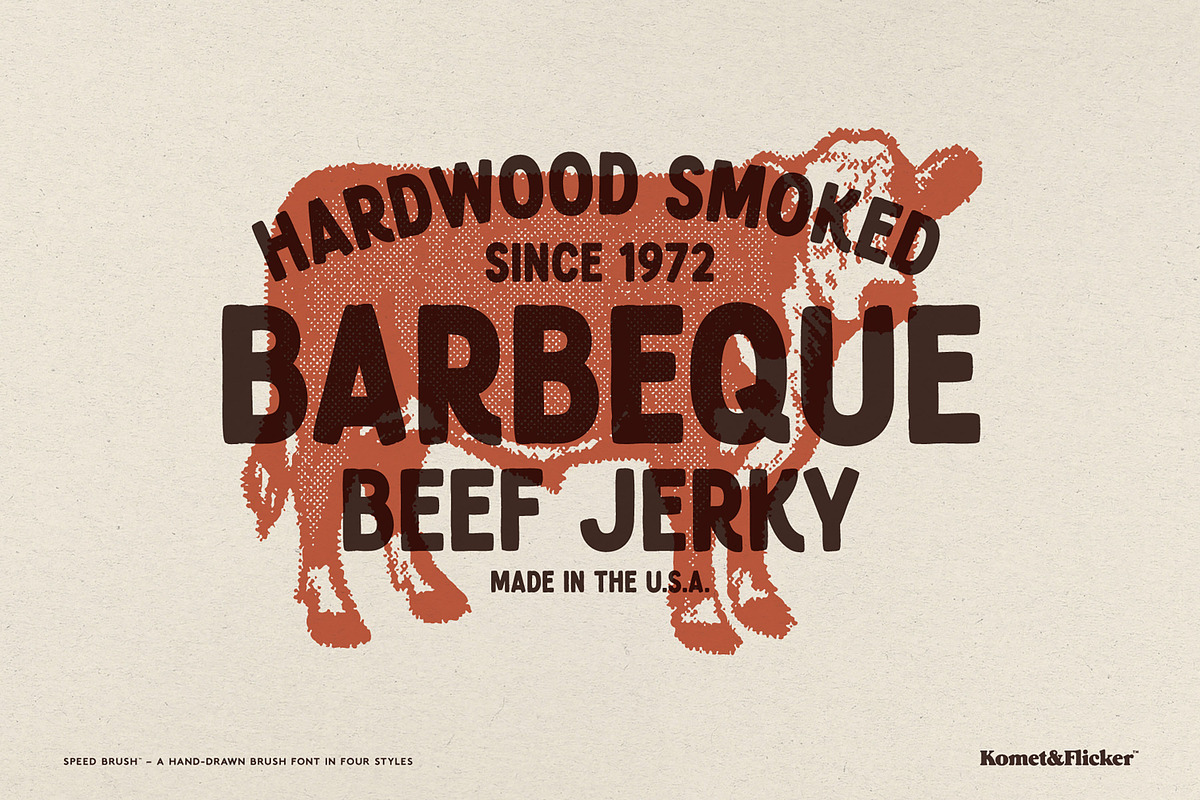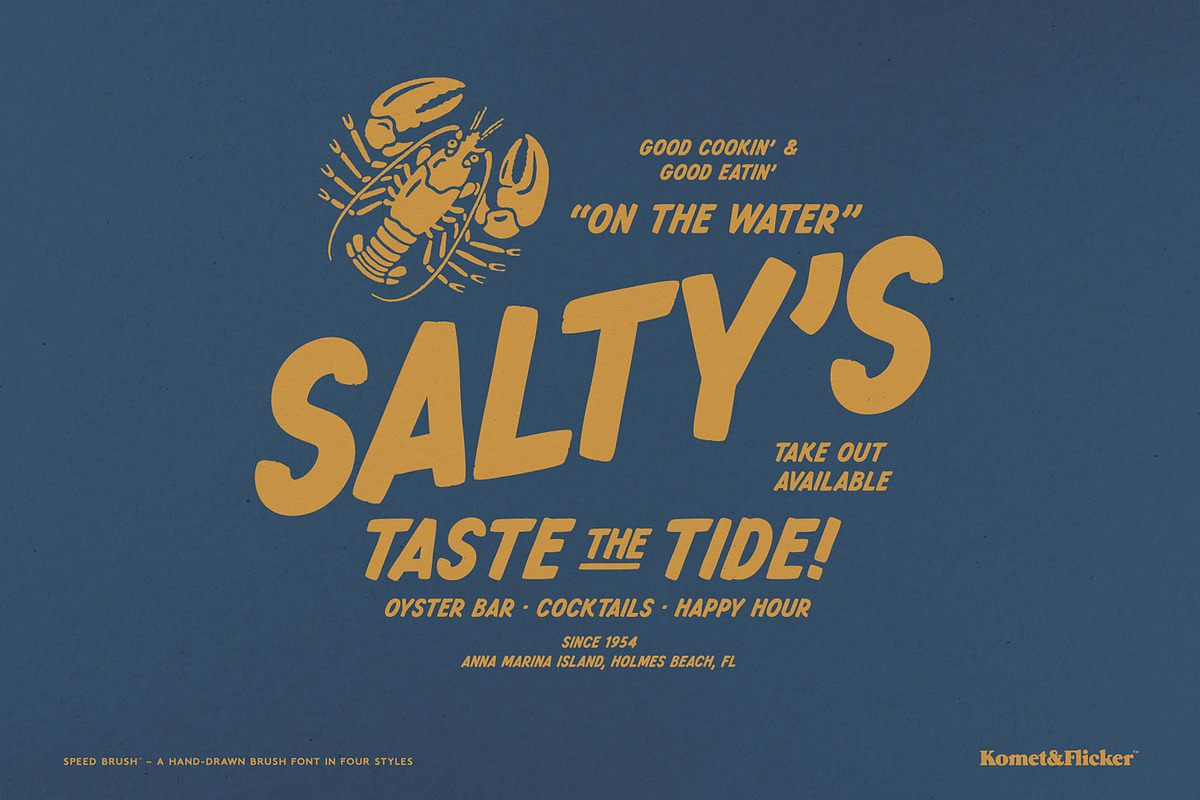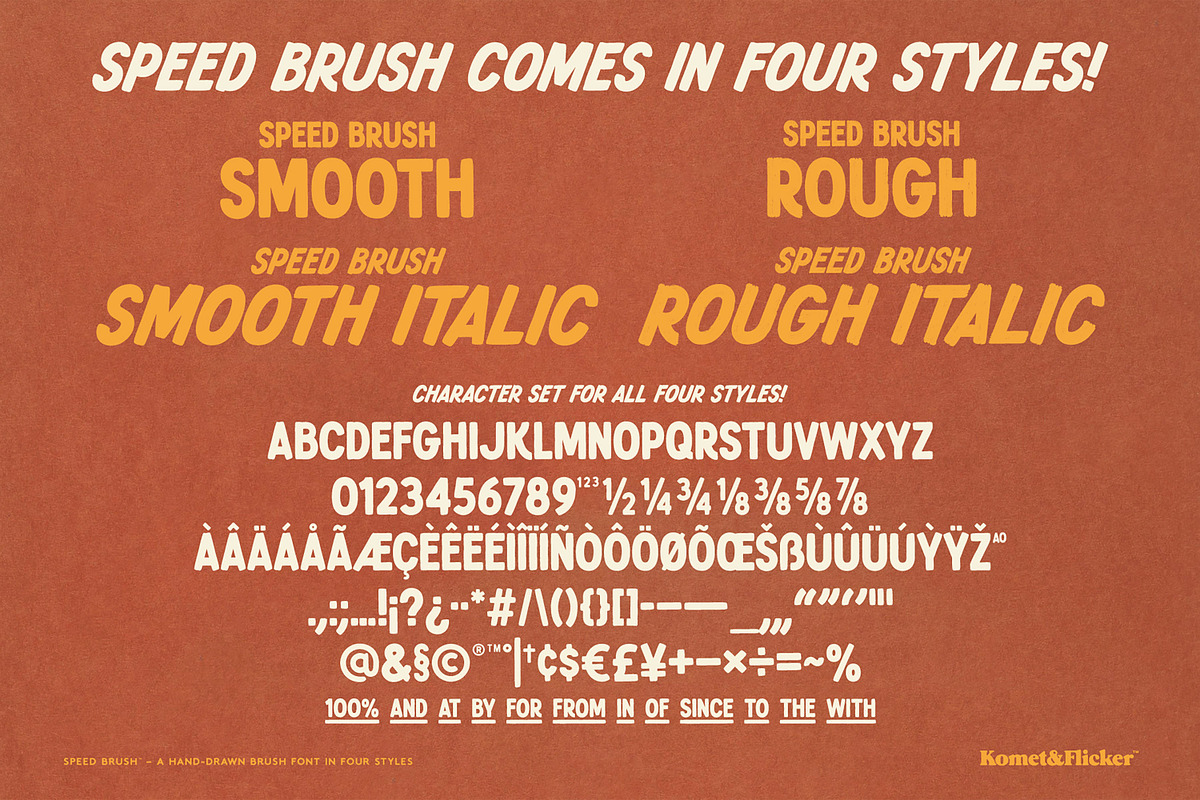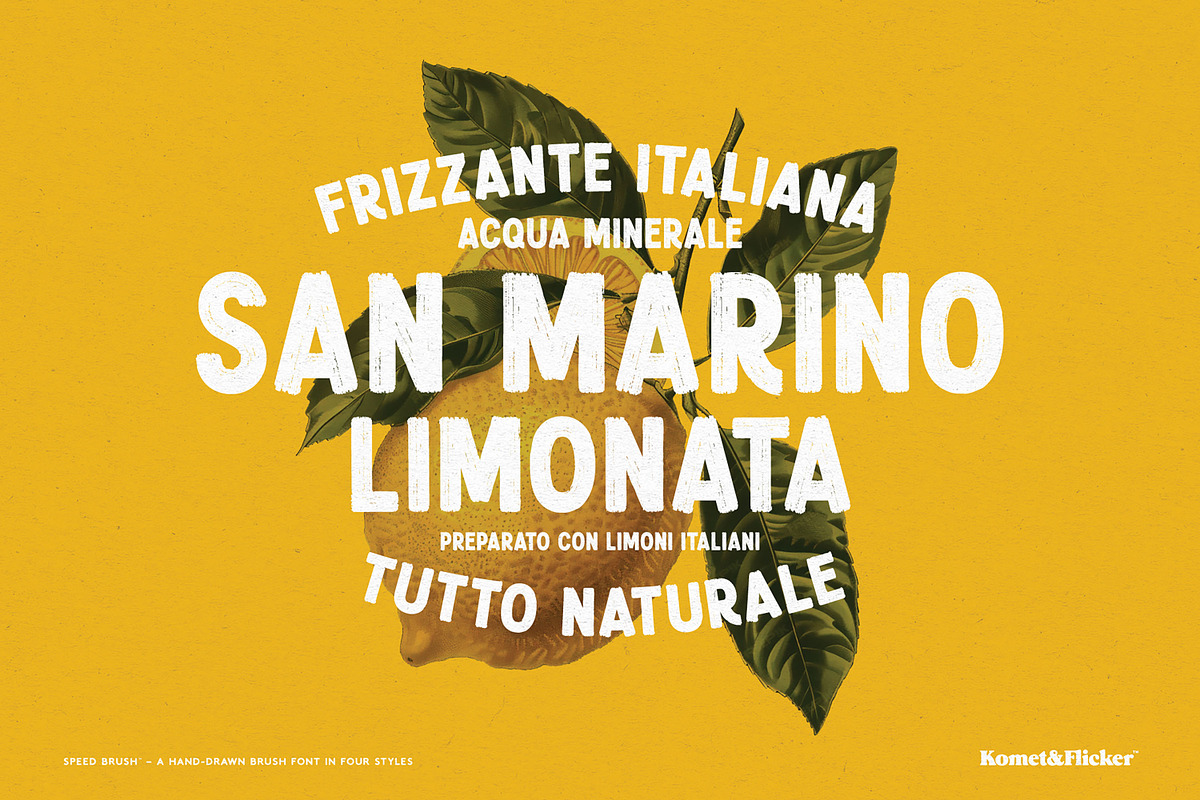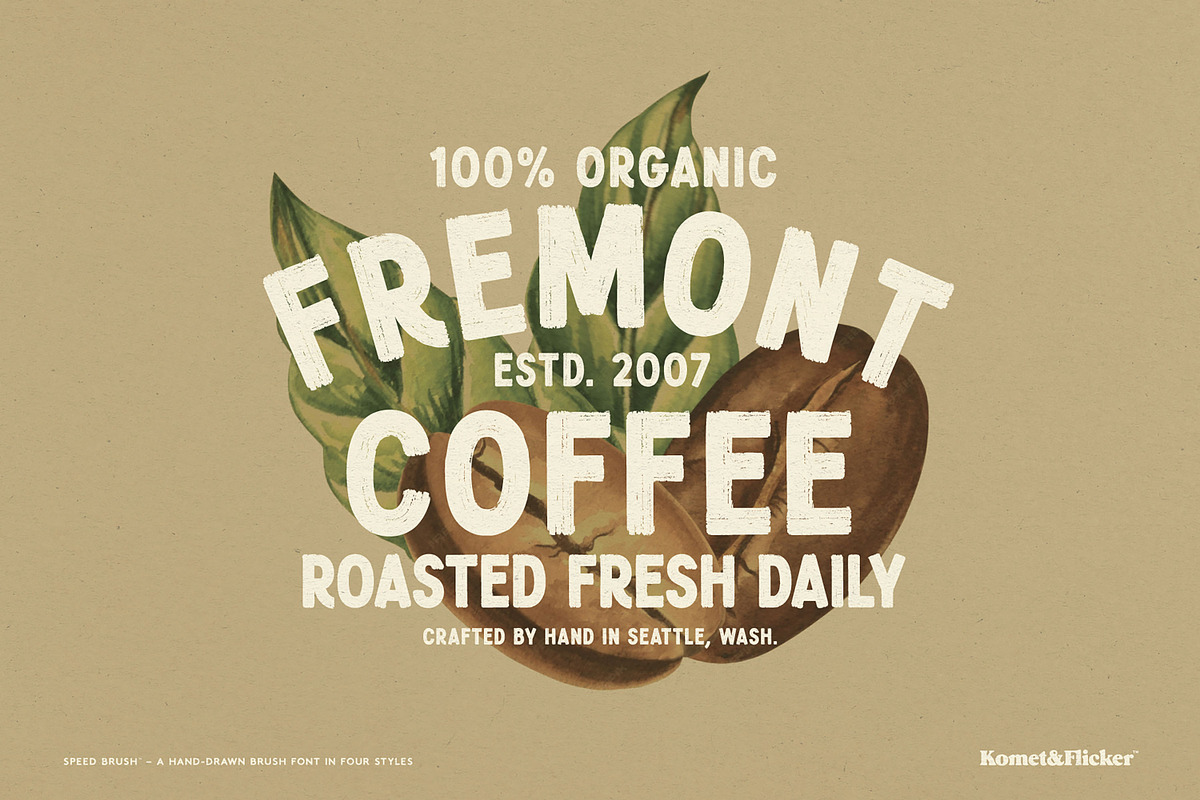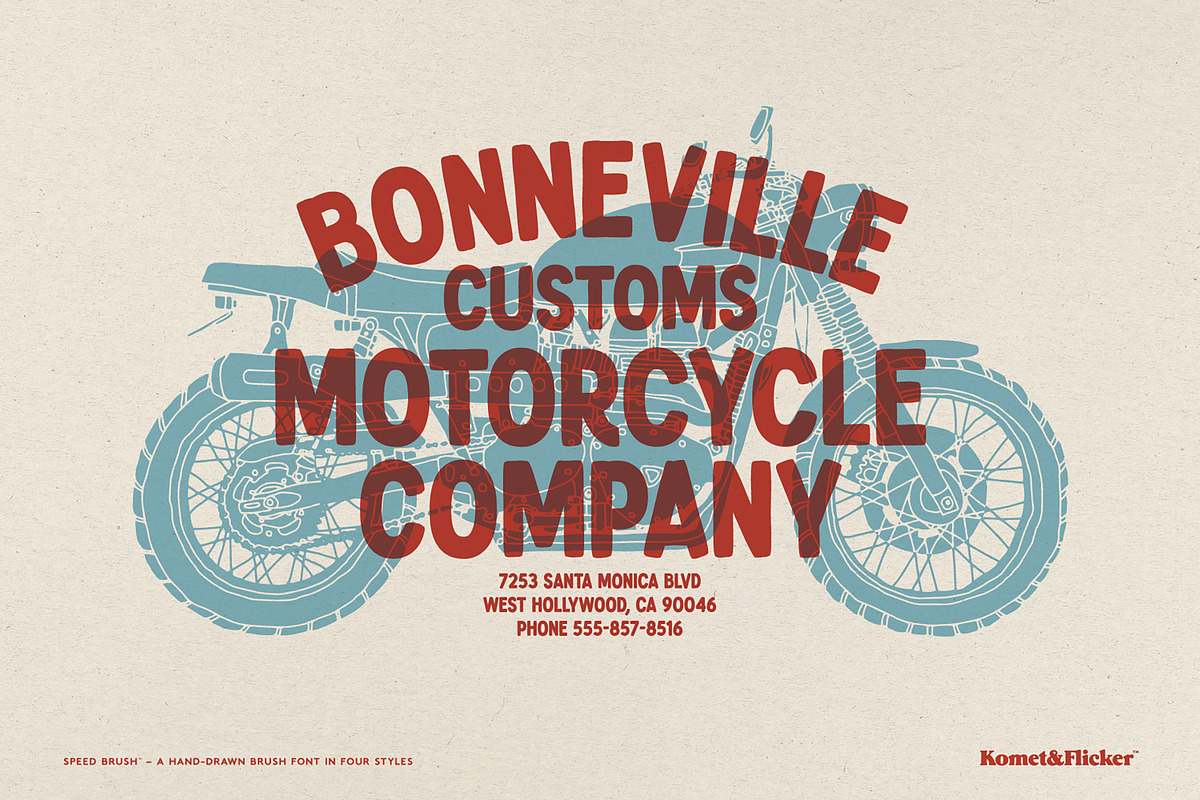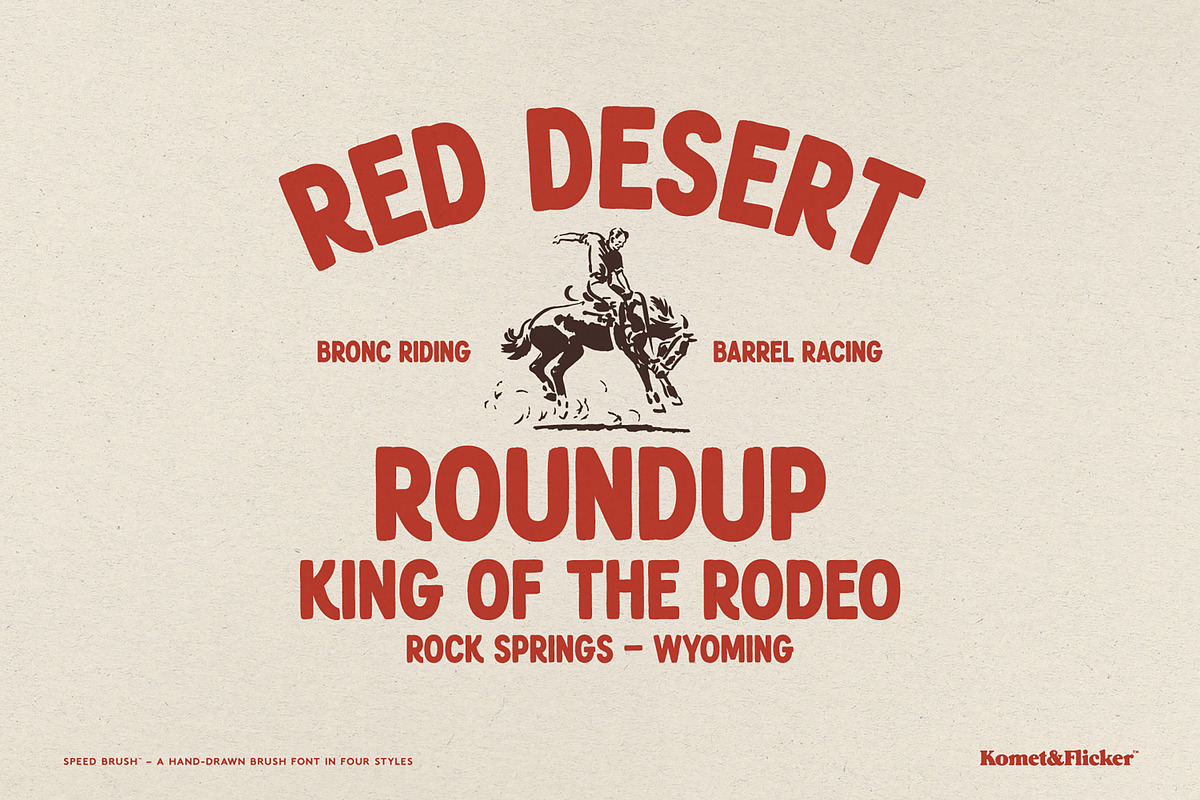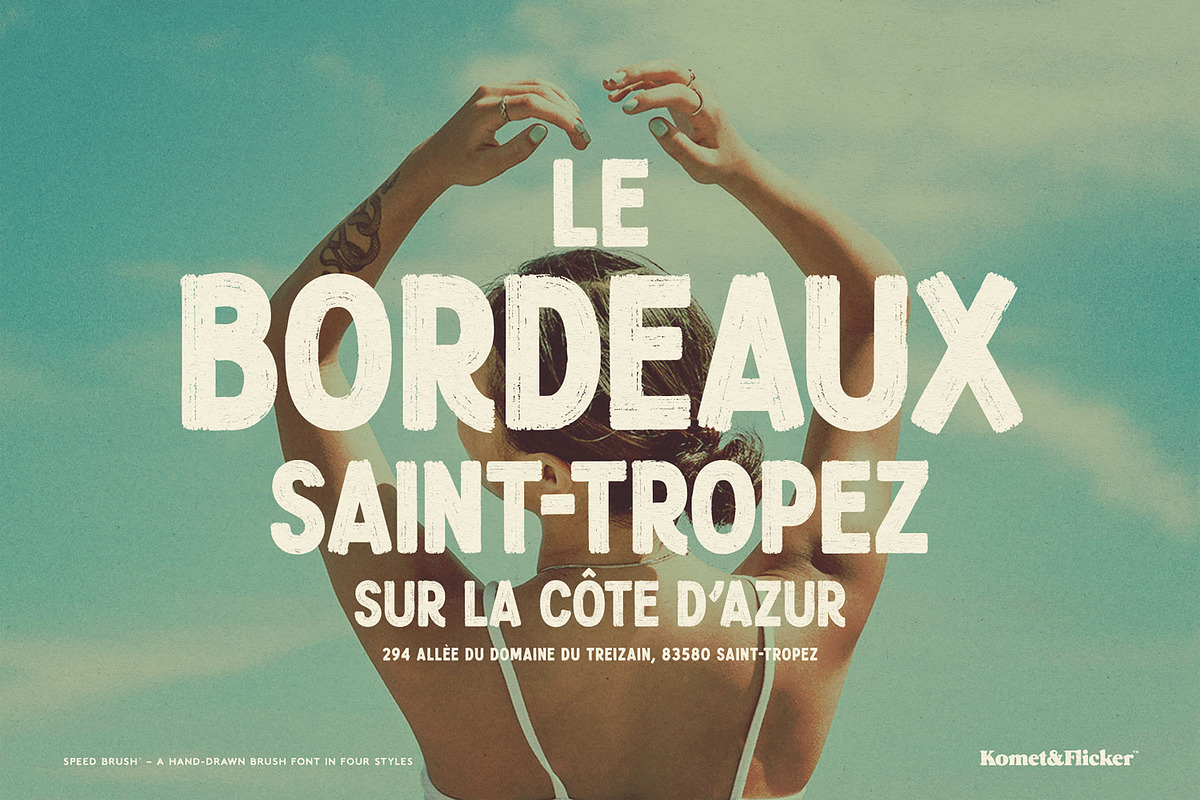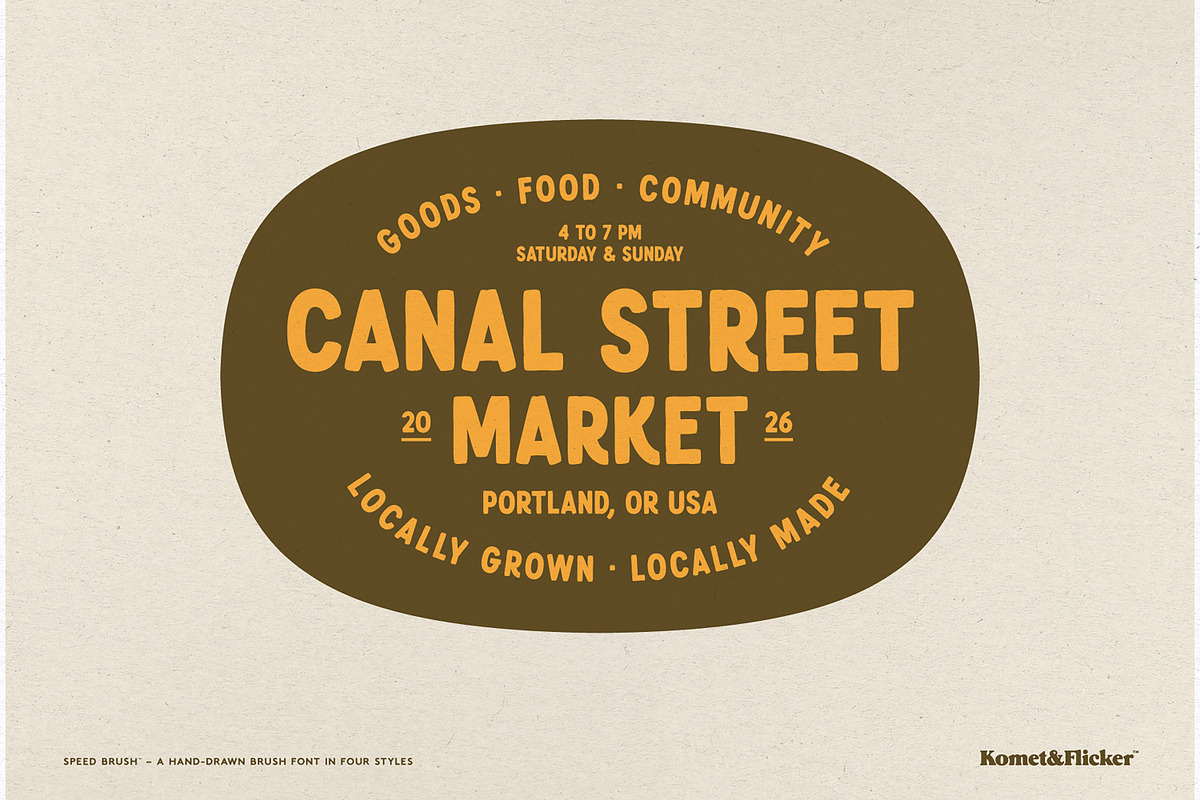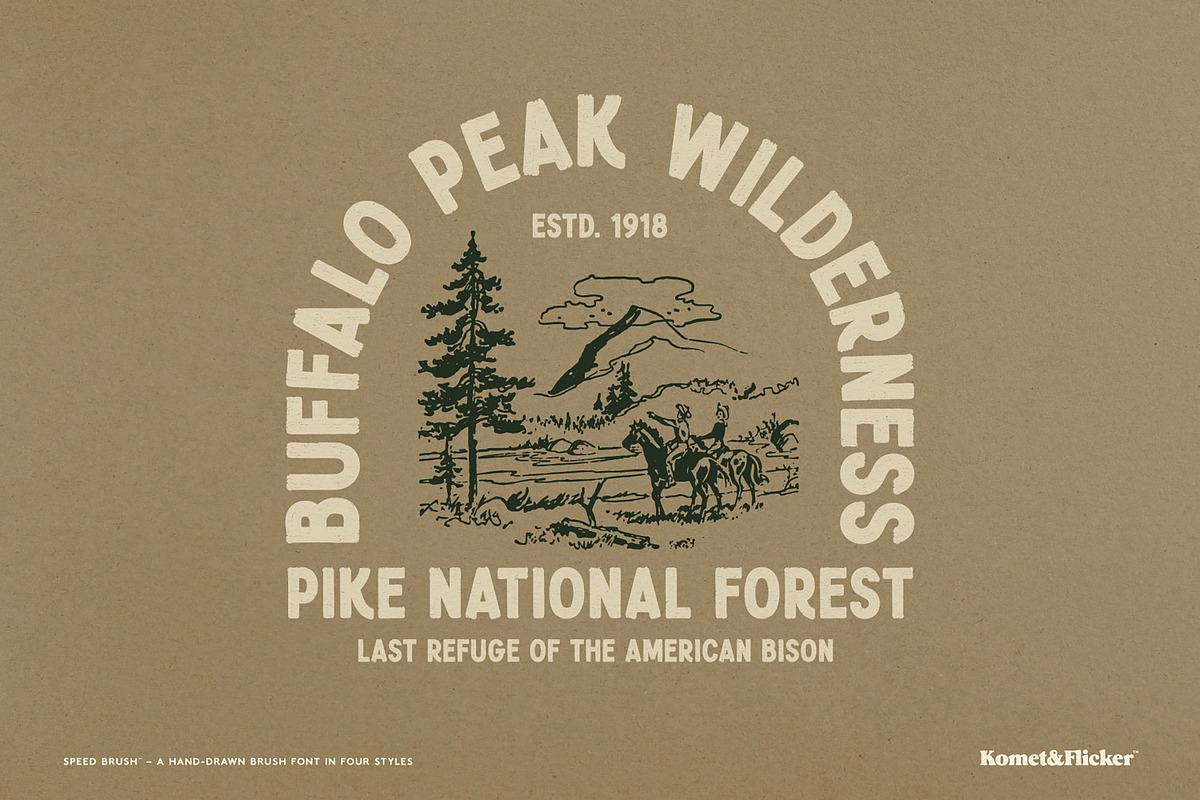
SPEED BRUSH
SPEED BRUSH is a bold brush font inspired by the raw energy of vintage hand-painted signage. Crafted with character and grit, it comes in four expressive styles: regular and italic, each available in both solid and rough stroke variations, giving you the flexibility to mix and match your text for the perfect look.
And to make your lettering flow naturally, SPEED BRUSH also includes a set of 12 pre-made connection words, such as AND, THE, and WITH – designed to seamlessly tie your compositions together.
From retro posters to modern branding, SPEED BRUSH brings authentic, hand-painted energy to every project.
Full A-Z latin uppercase characters
Select European specific characters
Numbers, punctuation, and select symbols
Pre-made common fractions
Set of 12 custom connecting word glyphs